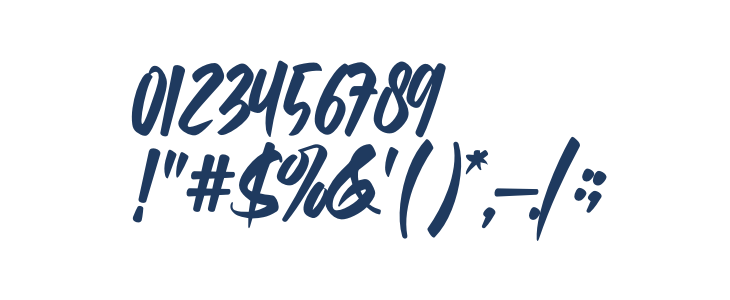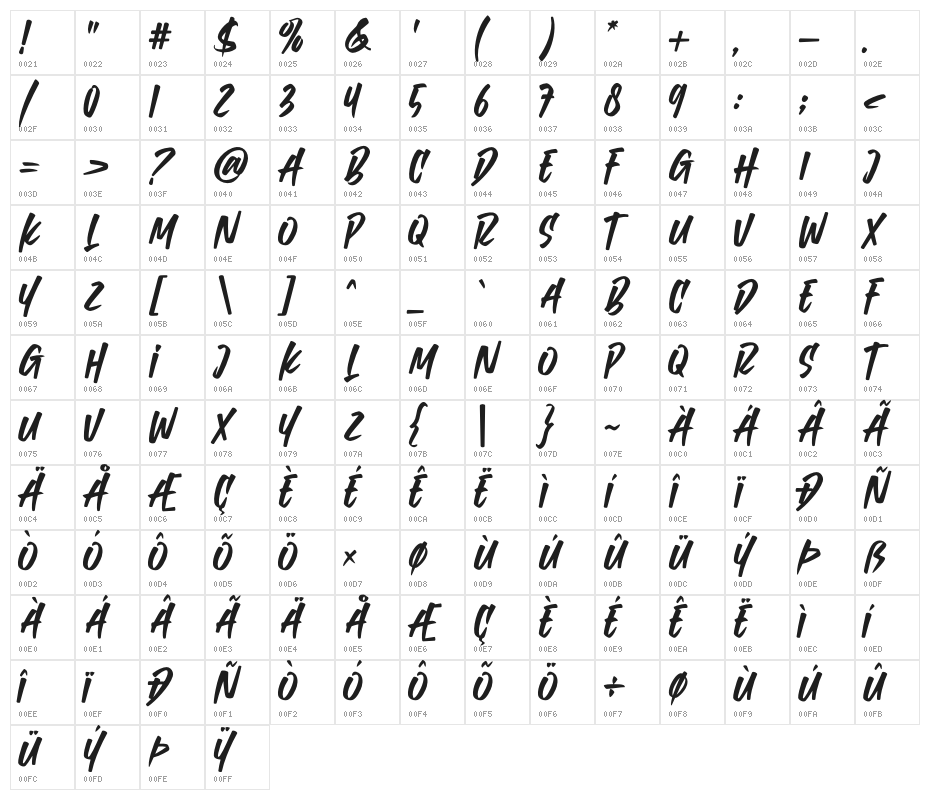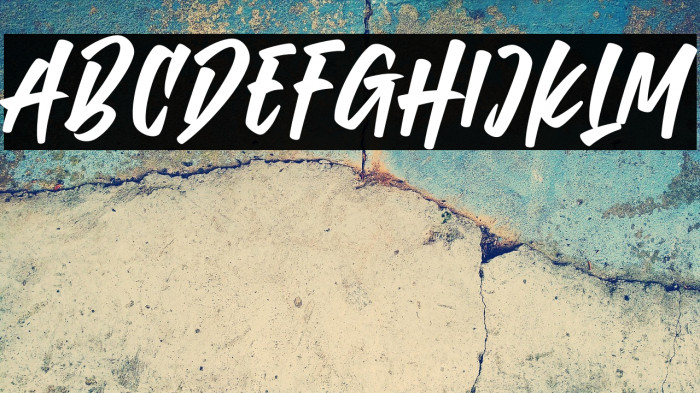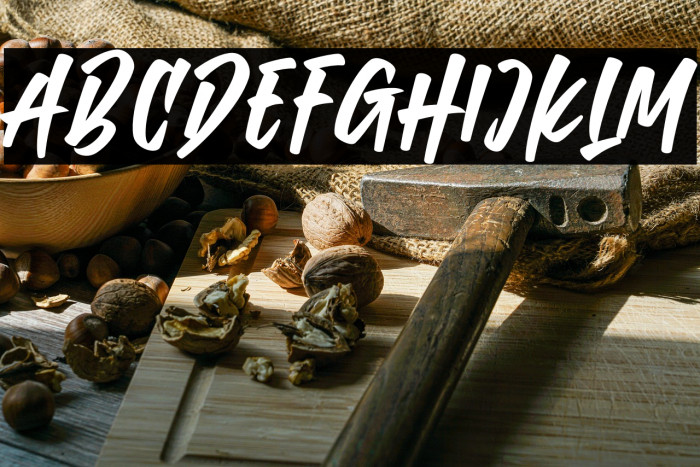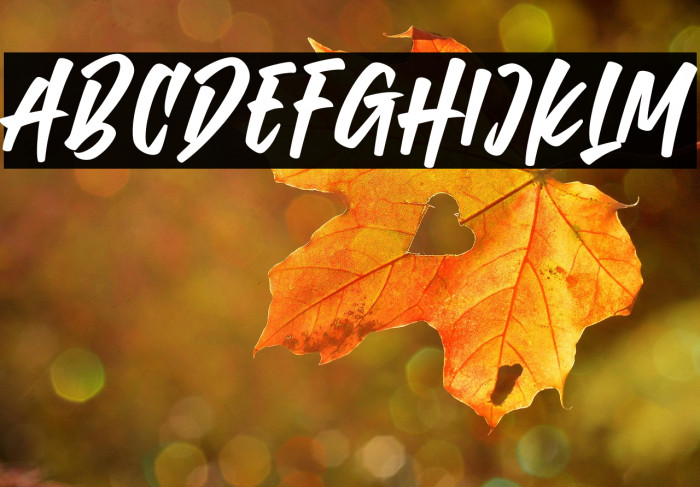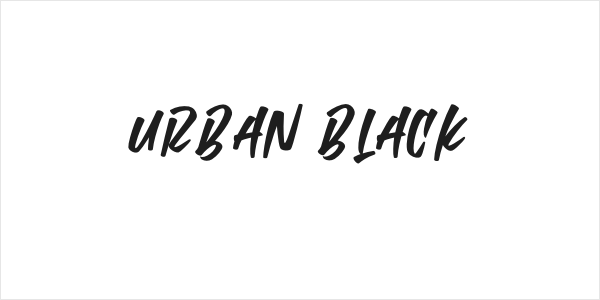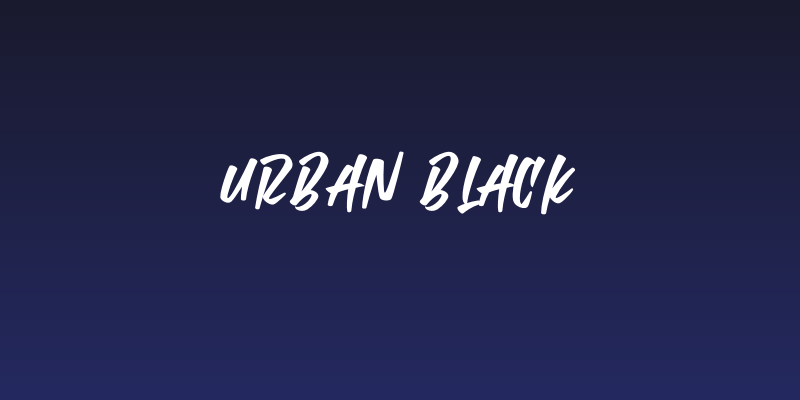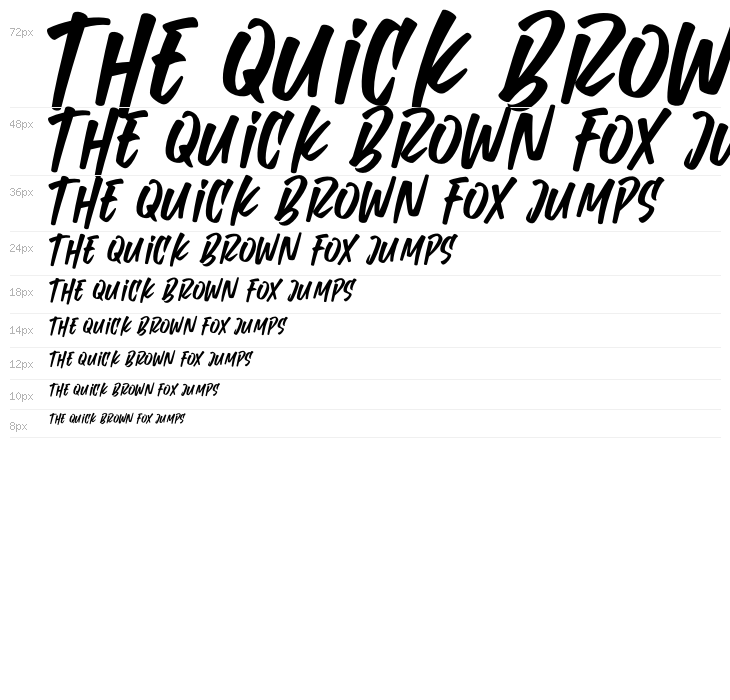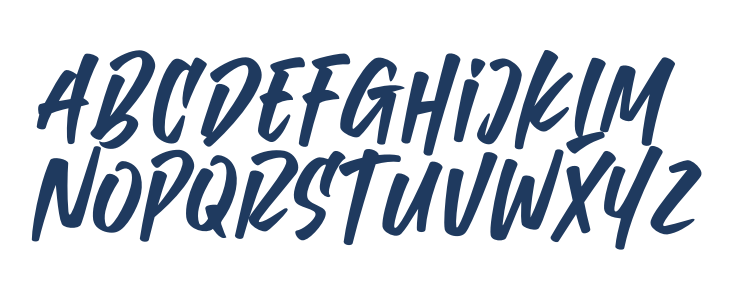
Urban Black Font
Urban Black Description
This font features a bold and dynamic handwritten style, characterized by its thick strokes and energetic flow. The letters have a slightly slanted orientation, giving them a sense of movement and urgency. The uppercase and lowercase letters maintain a consistent style, with rounded edges and a playful, informal appearance. Numbers and special characters are designed with the same boldness, ensuring uniformity across all characters. The overall look is modern and expressive, making it ideal for projects that require a personal touch or a statement-making headline.